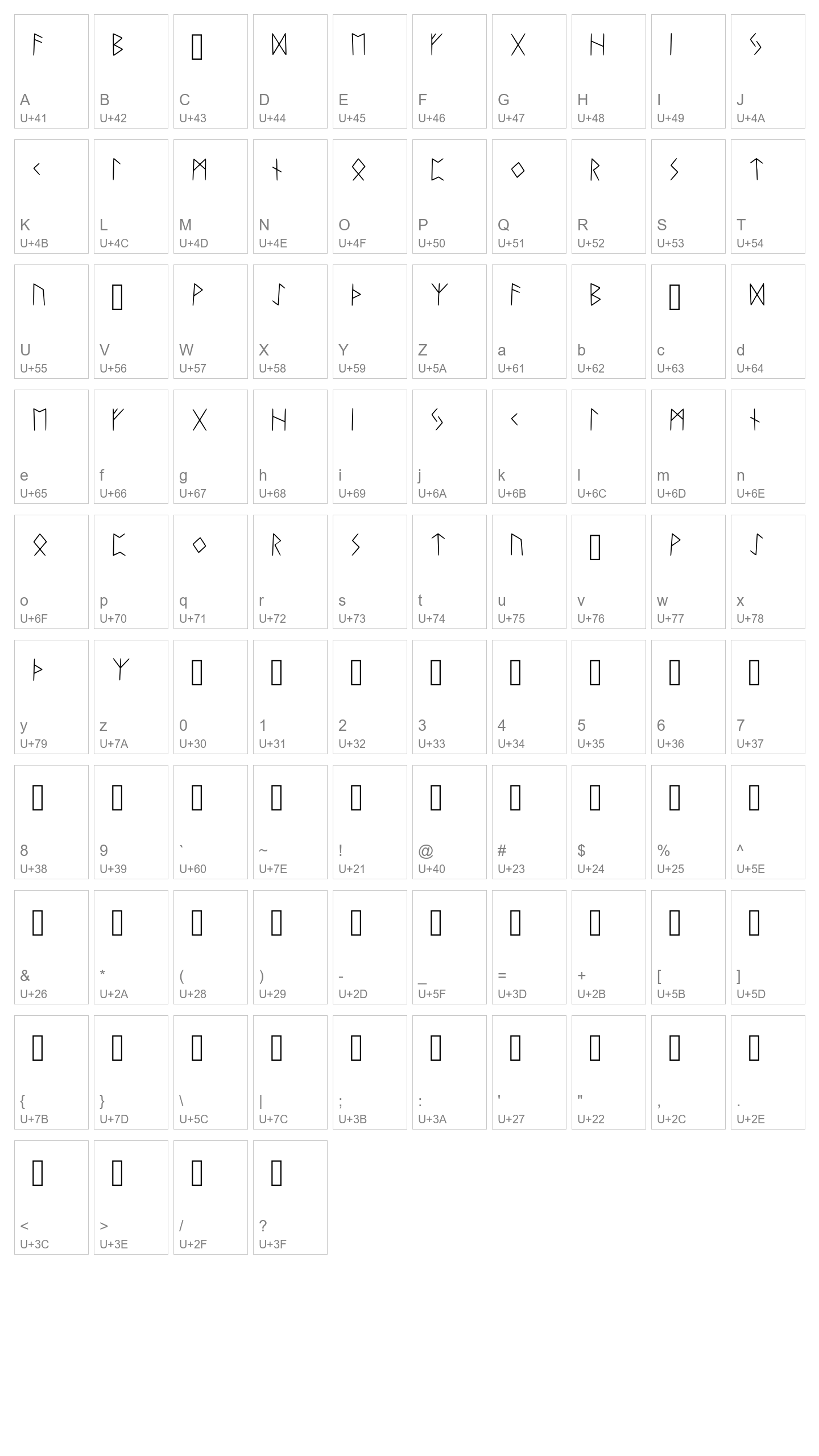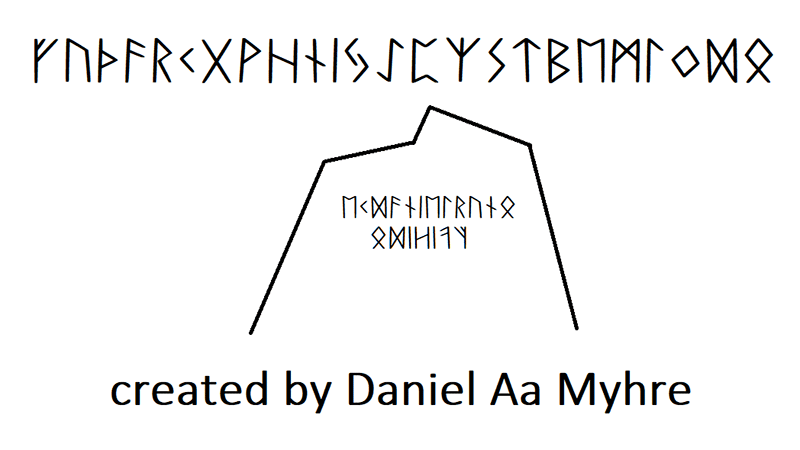
Elder Fuark Daanaasmyhr
Author: Daniel Aasen Myhre
This is a quick elder-fuþark font i made,
The elder-fuþark was an alphabet used by early germanic peoples from roughly 0-800 AD, later alphabets found among the anglo-frisians and the norse peoples are decendants from the elder-fuþark. The origins of the elder-fuþark are still uncertain, but there are similarities between the other alphabets of europe for example the greek alphabets, the roman alphabet, alpine alphabets etc.
Elder-fuþark consists of straight lines and shapes which made it easy to carve into for example stone or wood.